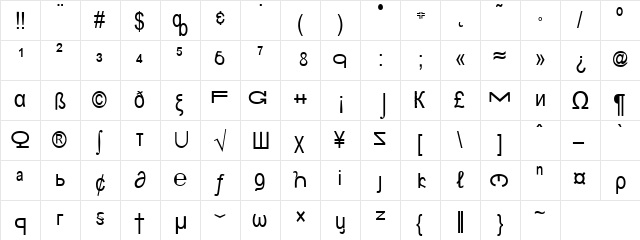
BungleCity Regular
Design Context for BungleCity Typeface
BungleCity is a composed and adaptable typeface that performs quietly and consistently across a wide range of design contexts.